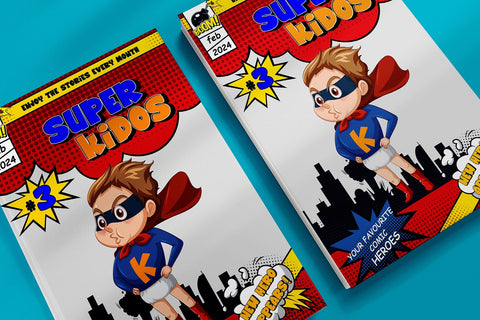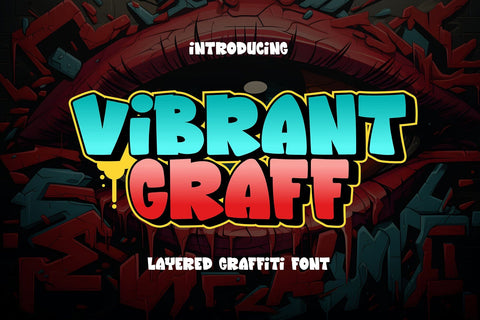
Vibrant Graff - Layered Graffiti Font
"Vibrant Graff" is a bold graffiti font featuring thick letterforms with both normal and shadowed characters. Graffiti fonts are known for their expressive and dynamic style, often characterized by bold strokes and urban-inspired designs. The addition of shadowed characters introduces depth and dimension to the text, creating a three-dimensional effect that adds visual interest.
- Graffiti Characters looks